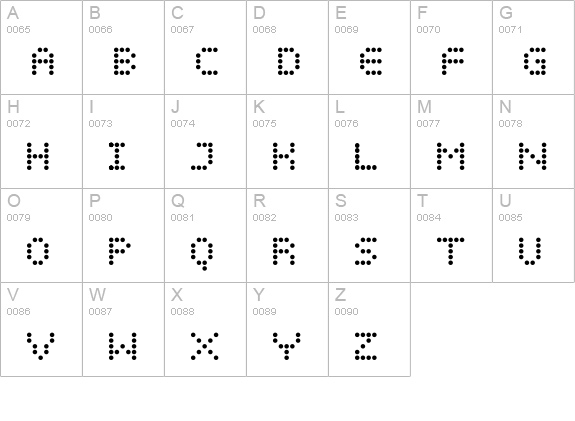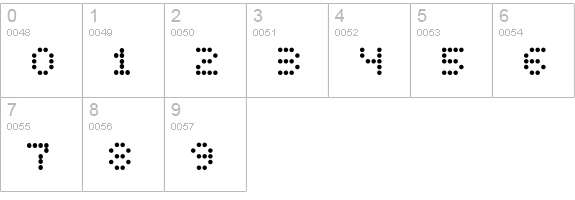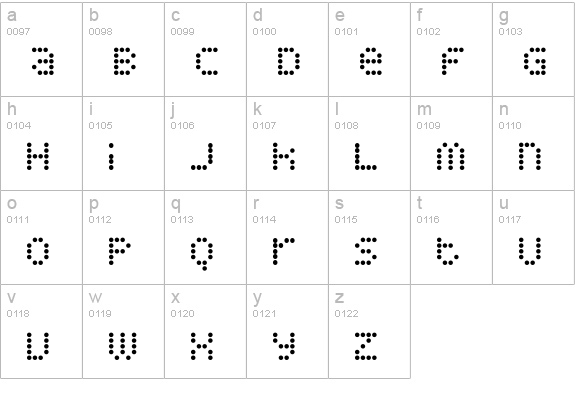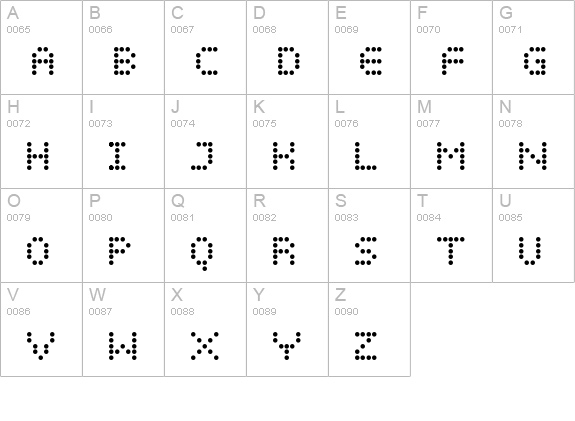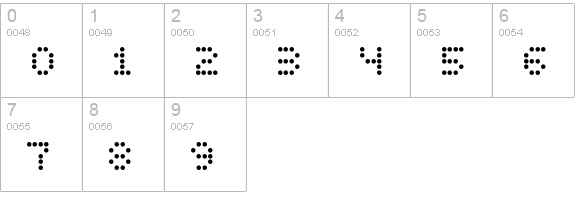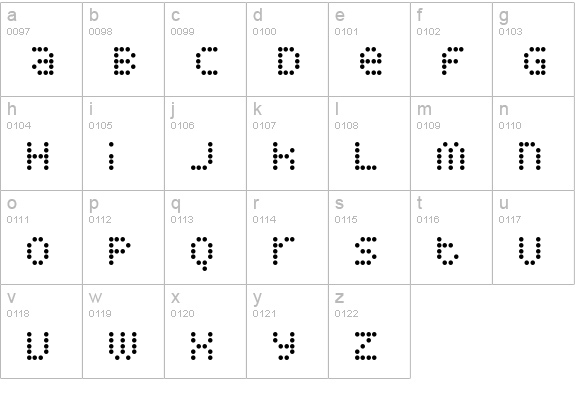
TR Display Dots Font Details
TR Display Dots font is a modern and stylish typeface that features a unique dotted pattern design, perfect for adding a contemporary touch to your projects. This eye-catching font is ideal for titles, headlines, and branding materials, offering a bold and dynamic appearance that will make your text stand out. The clean and well-defined dots create a visually appealing texture that adds interest and depth to any design. Best of all, TR Display Dots font is available for free download at FontsMarket.com, making it easily accessible for anyone looking to add a touch of creativity to their work. Whether you're working on posters, banners, websites, or any other design project, this versatile font will elevate your typography and leave a lasting impression on your audience. Don't miss out on the opportunity to enhance your designs with the striking TR Display Dots font - download it for free today!